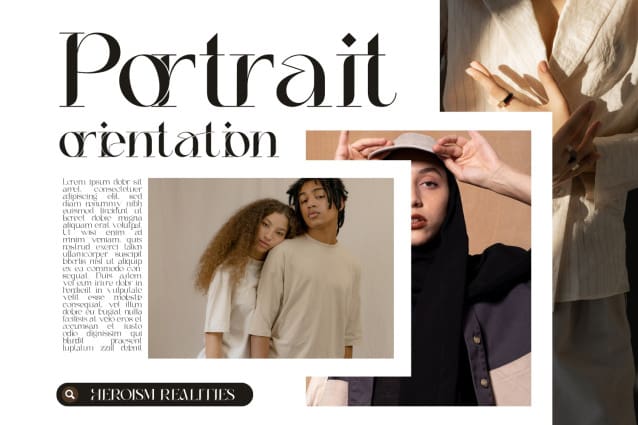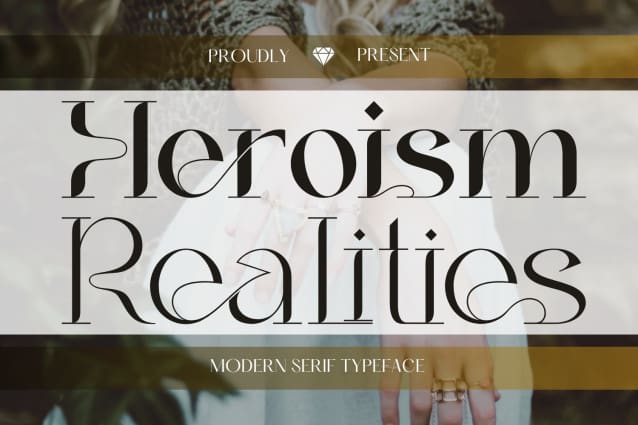
Heroism Realities Font
Heroism Realities Font is a balanced, smooth, elegant and stylish serif font. A beautifully crafted serif font that combines elegance with a classic design. Its clean lines and timeless appeal make it a versatile choice for a wide range of projects. The gentle curves and precise detailing in the characters lend a touch of elegance, making it suitable for upscale and professional designs.
Heroism Realities was built with OpenType features and includes 100 ligatures, alternate, numbers, punctuation, and it also supports other languages.